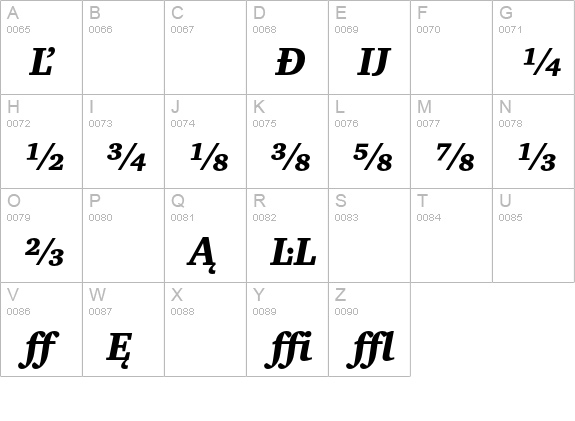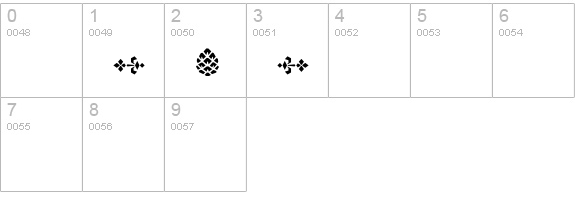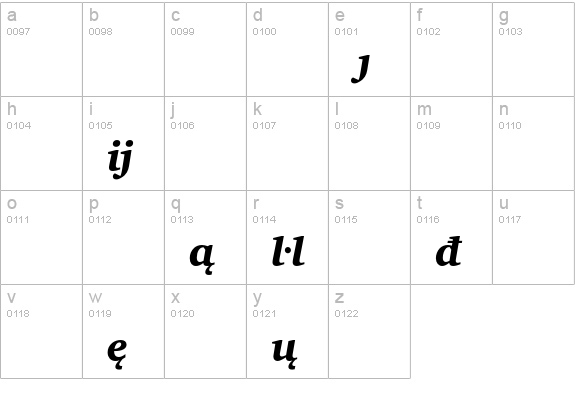
Charter Black Italic Extension Font Details
Charter Black Italic Extension is a maximum-weight, dramatic, italic variant in the Charter typeface family \xE2\x80\x94 well suited to maximum-impact headlines, posters, and packaging.
Charter Black Italic Extension is a sophisticated and versatile font that exudes elegance and style. Its sleek and modern design makes it perfect for a wide range of projects, from editorial layouts to branding materials. The italic extension adds a touch of flair and sophistication, making it stand out from other fonts. The Charter Black Italic Extension font is not only visually appealing but also highly readable, making it a great choice for both display and body text. Its bold and striking appearance commands attention, while still maintaining a sense of refinement and professionalism. Best of all, the Charter Black Italic Extension font is available for free download at FontsMarket.com. This means you can easily access this stunning font and use it in your own projects without any cost. Don't miss out on this fantastic opportunity to elevate your designs with the beautiful Charter Black Italic Extension font.